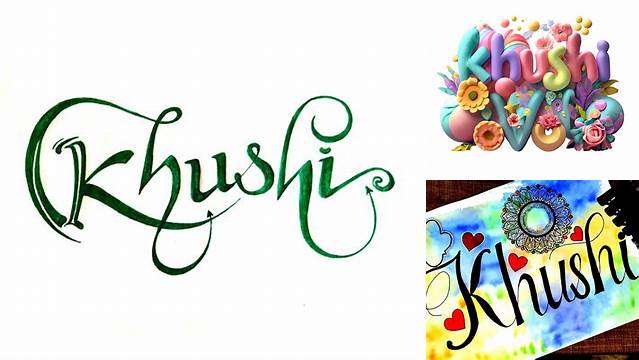
Khushi Fonts: Copy & Paste Stylish Text
Khushi in Different Fonts: Copy and Paste Your Way to Typography Fun!
Hey guys! Are you looking to spice up your social media posts, messages, or even your digital art with some fancy fonts? Then you've come to the right place! This article is all about 'Khushi in different fonts copy paste,' so you can easily add some flair to your digital communications. We'll explore tons of font styles for the name "Khushi," allowing you to copy and paste them wherever you need them. Get ready to transform your text and express yourself in unique ways! Let's dive in and make your text pop!
Khushi Font Styles: Exploring Creative Typography
Let's kick things off with a journey into the world of typography! When we talk about Khushi in different fonts copy paste, it's all about finding the perfect style to convey your message. From elegant scripts to bold display fonts, the possibilities are endless. Choosing the right font can significantly impact how your text is perceived, so it's essential to explore various styles. We'll look at options that are both visually appealing and easy to read, ensuring your message is both stylish and accessible. We'll explore fonts that range from the classic and timeless to the modern and quirky. Each style will offer a unique flavor to the name "Khushi," so you can select the one that resonates most with you. The key is to consider the overall aesthetic you're aiming for: are you going for a romantic feel, a fun vibe, or something more professional? We will explore various font styles so you can copy and paste the name "Khushi" and be the star!
Khushi in Cursive Fonts: Adding Elegance
Khushi in different fonts copy paste often starts with a touch of elegance, and what better way to achieve that than with cursive fonts? Cursive fonts bring a sense of grace and sophistication to any text. These fonts mimic handwriting, making them perfect for creating a personal touch. The flowing lines and interconnected letters of cursive fonts make "Khushi" look beautiful and sophisticated. If you're looking to add a touch of formality or romance, cursive is an excellent choice. When you use Khushi in different fonts copy paste in cursive, you can instantly elevate any greeting card, invitation, or social media post. These fonts also work well for adding a touch of personalization. Consider the different variations of cursive – from the delicate and subtle to the bold and dramatic. Some cursive fonts are highly elaborate, featuring swirls and flourishes, while others are simpler and more streamlined. The best one will depend on your particular project, the kind of message you're trying to deliver, and your personal tastes. So, as you explore Khushi in different fonts copy paste, remember to experiment with cursive fonts to see how they can add that extra touch of elegance.
Khushi in Bold Fonts: Making a Statement
Want to make a statement? Khushi in different fonts copy paste with bold fonts is the way to go! Bold fonts are designed to grab attention and ensure that your text is immediately noticed. The thicker strokes and heavier appearance of these fonts make the name "Khushi" stand out. Bold fonts are ideal for headings, titles, and any text that you want to emphasize. They are perfect for conveying strength, confidence, and impact. Whether you're designing a poster, creating a social media graphic, or simply wanting to highlight a name, bold fonts can get the job done. When you use Khushi in different fonts copy paste with a bold font, you ensure your text stands out from the background and immediately captures the viewer's attention. Different bold font styles offer various aesthetics, ranging from sleek and modern to classic and traditional. Choose the font that best reflects your brand or personal style. Bold fonts are perfect for conveying a sense of energy and enthusiasm. So next time you need to make a statement, remember to use Khushi in different fonts copy paste with bold fonts.
Khushi in Script Fonts: A Touch of Personality
Khushi in different fonts copy paste isn't just about elegance; it's also about adding personality. Script fonts bring a unique, handwritten feel to the name "Khushi." Script fonts come in many styles, each offering a different personality. Some script fonts are graceful and flowing, while others are more casual and playful. They can add a personal and artistic touch to any project. Script fonts often mimic handwriting, giving a sense of authenticity. When you are looking for Khushi in different fonts copy paste, script fonts are great for creating invitations, logos, and personalized messages. They are ideal for adding that extra special touch. The personality of a script font can range from romantic to whimsical. These fonts can range from the subtle and delicate to the bold and dramatic. The best one will depend on the project, the message you are trying to send, and your personal style. So, when using Khushi in different fonts copy paste, explore the many script fonts to find the perfect fit for your project.
Khushi in Modern Fonts: Contemporary Vibes
Embracing modern design? Khushi in different fonts copy paste with modern fonts can do just that. Modern fonts are characterized by their clean lines, sleek aesthetics, and minimalist designs. They reflect a contemporary sensibility and are perfect for anything that needs a fresh, up-to-date look. These fonts often feature simple, geometric shapes and are designed for easy readability. Whether you're designing a website, creating a modern logo, or updating your social media profiles, modern fonts can work wonders. When you explore Khushi in different fonts copy paste, selecting a modern font will instantly add a sense of sophistication and current style. These fonts often come in a range of weights and styles. Consider the different options – from thin and elegant to bold and impactful. These fonts can be used in various contexts, from digital design to print materials. If you're looking to showcase a sense of innovation and style, modern fonts are a great choice. So, when choosing a font for "Khushi", remember that modern fonts can bring a contemporary vibe to your project.
Khushi in Handwritten Fonts: Personal and Unique
For a personal and unique touch, Khushi in different fonts copy paste using handwritten fonts is a great option. These fonts mimic real handwriting, giving your text a genuine, human feel. This can be the best way to convey authenticity and a personal connection. They are perfect for adding a custom touch to anything from social media posts to greeting cards. When you use Khushi in different fonts copy paste with handwritten fonts, you're essentially creating a message that feels as though it was handwritten by someone. These fonts can range from casual and informal to elegant and stylish. Each style adds a unique feel to the name "Khushi", creating the effect of a personal note. They are great for conveying a sense of warmth and approachability. So, when you consider Khushi in different fonts copy paste, don't overlook the power of handwritten fonts. They can turn ordinary text into something special.
Khushi in Decorative Fonts: Adding Flair
Looking to add some flair? Khushi in different fonts copy paste with decorative fonts can do the trick! Decorative fonts are designed to add style, creativity, and visual interest to your text. These fonts come in many styles, including those with ornate details, unique shapes, and artistic elements. They're perfect for making your text stand out and adding personality to your design. Decorative fonts can be used for a wide range of projects, including invitations, posters, and social media graphics. When using Khushi in different fonts copy paste, decorative fonts can make your text instantly eye-catching. The key is to choose a decorative font that complements your overall design and fits the tone of your message. The different types of decorative fonts provide different feelings and effects. These fonts can also come with embellishments. So, when you're looking for Khushi in different fonts copy paste, consider the fun and creative possibilities of decorative fonts.
Copy and Paste Khushi: Quick Guide
Let's simplify the Khushi in different fonts copy paste process. The beauty of this method is its ease and accessibility. All you have to do is find the font style you want, copy the text, and paste it where you need it. It's a simple way to add variety and creativity to your text without the hassle of installing fonts or using complex design software. This method is perfect for those who want to quickly change their text. We'll show you some easy steps to follow to get the perfect "Khushi" in your desired font.
- Choose a Different Font: If a font is hard to read, try a different one.
- Simplify the Background: Ensure the background is not too busy. Keep the background simple.
Conclusion: Embrace the World of Fonts
And there you have it, folks! You now have everything you need to dive into the fun world of Khushi in different fonts copy paste. Experiment with the endless possibilities, and watch your text transform from plain to amazing. Enjoy adding some flair and creativity to your digital communications! Have fun and happy font-ing!